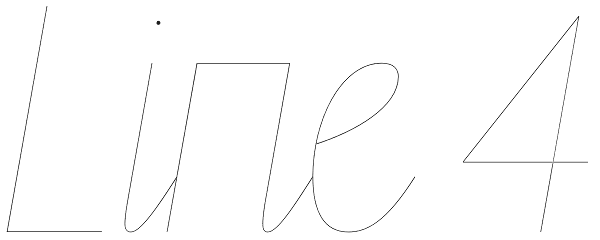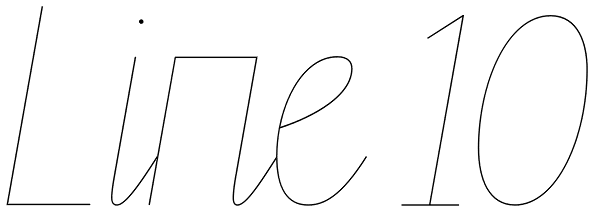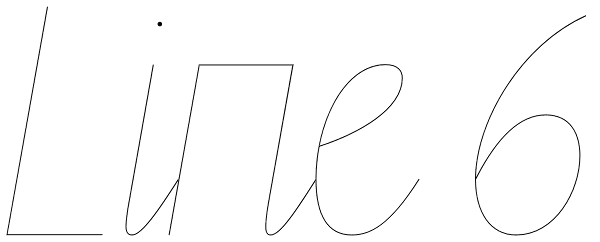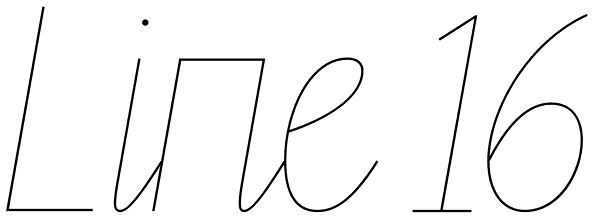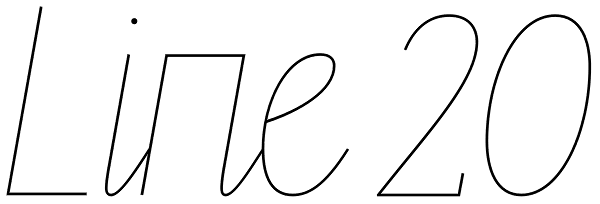
Line
Line is a collaboration between Stefania Malmsten and Göran Söderström. The typeface was originally designed for Swedish fashion and culture magazine Rodeo in 2012 before it was released for commercial use at the end of 2013. Line comes in 5 super...
Line 4
Line 10
Line 6
Line 16
Line 20